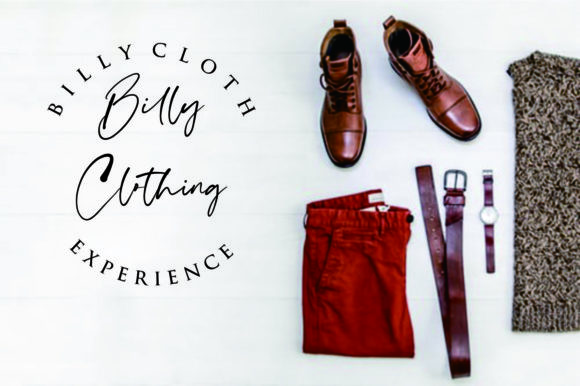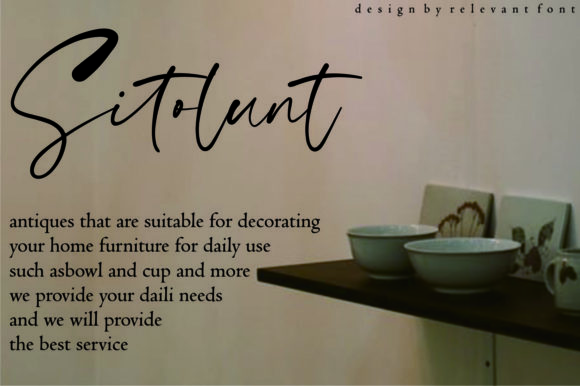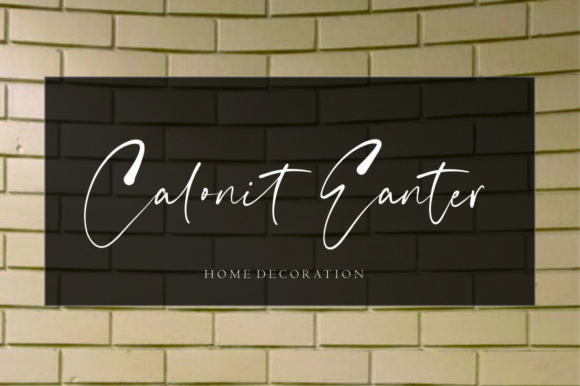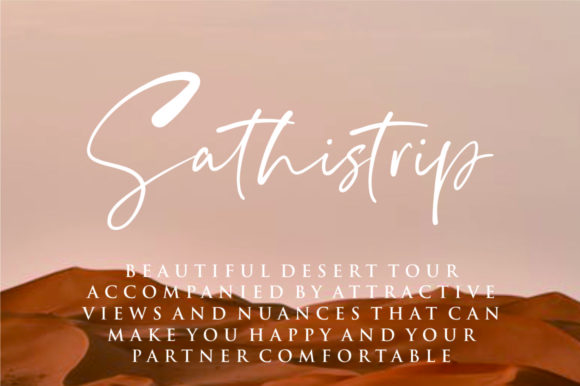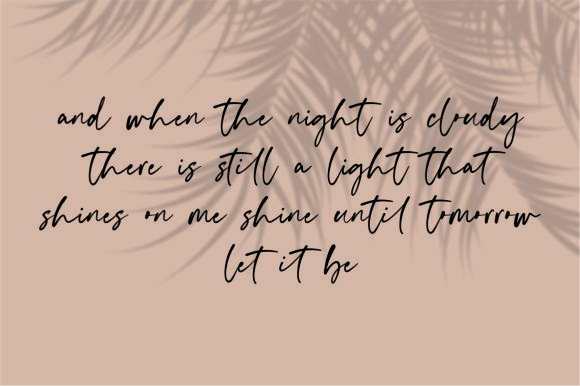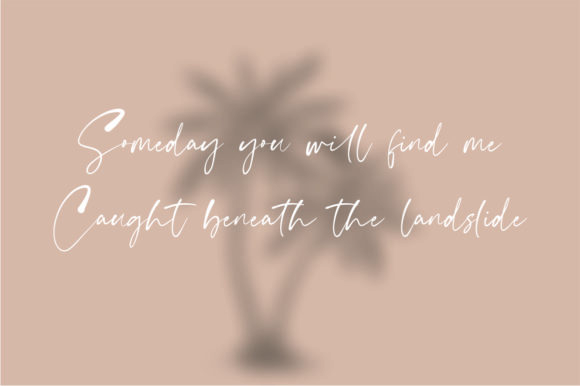
Relevant Font
About Relevant Font
Relevant feels both contemporary and classic, which makes it an incredibly versatile script. This modern interpretation of calligraphy belongs in any good font library!